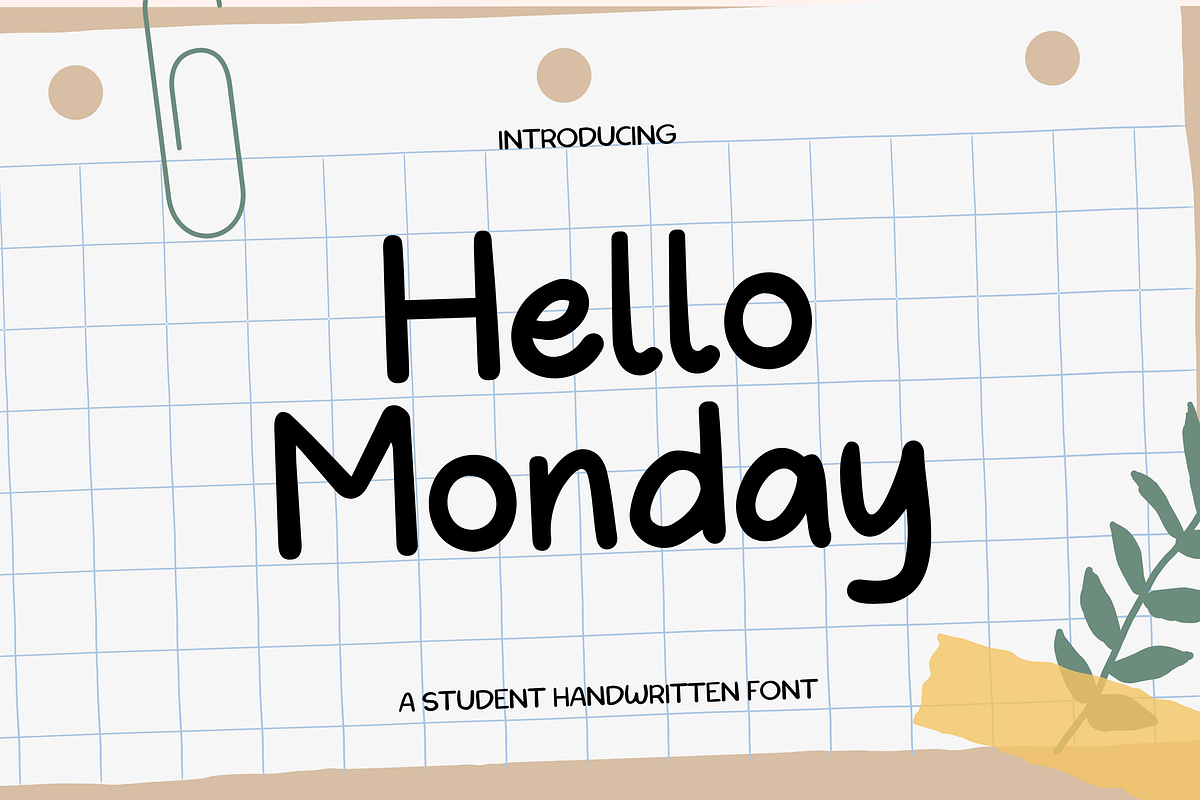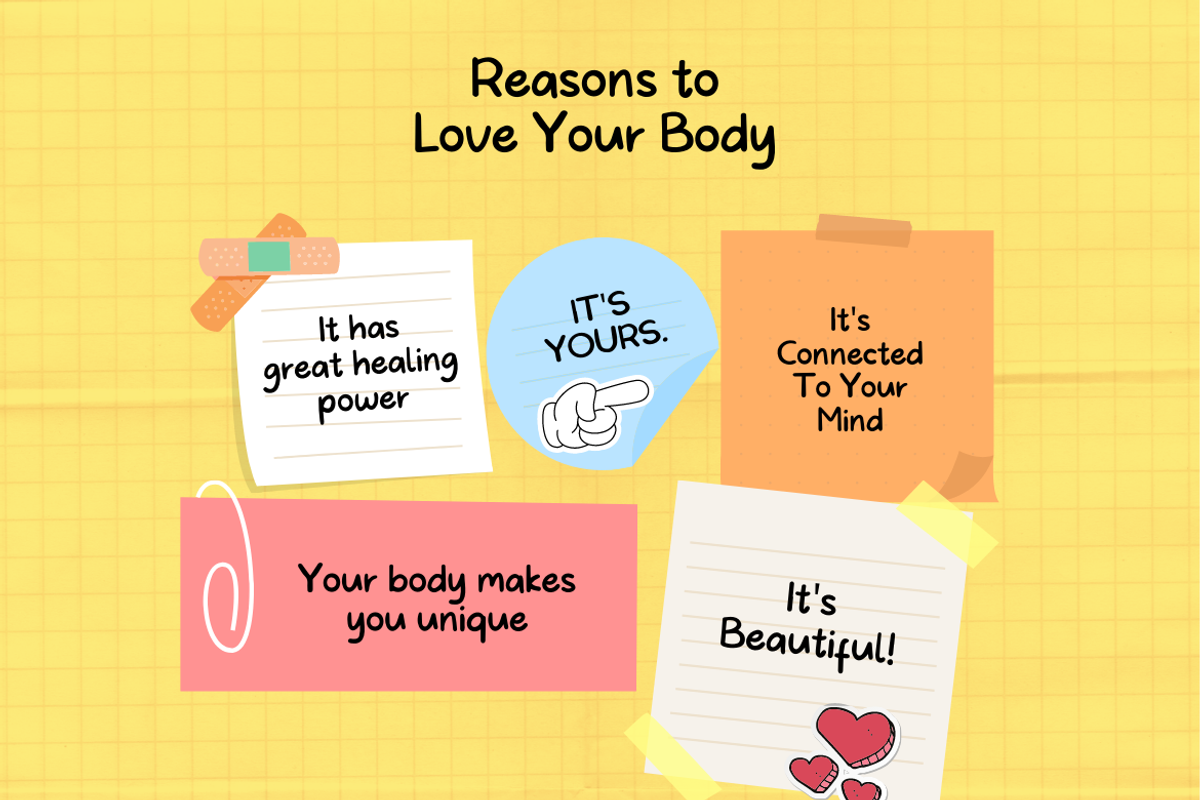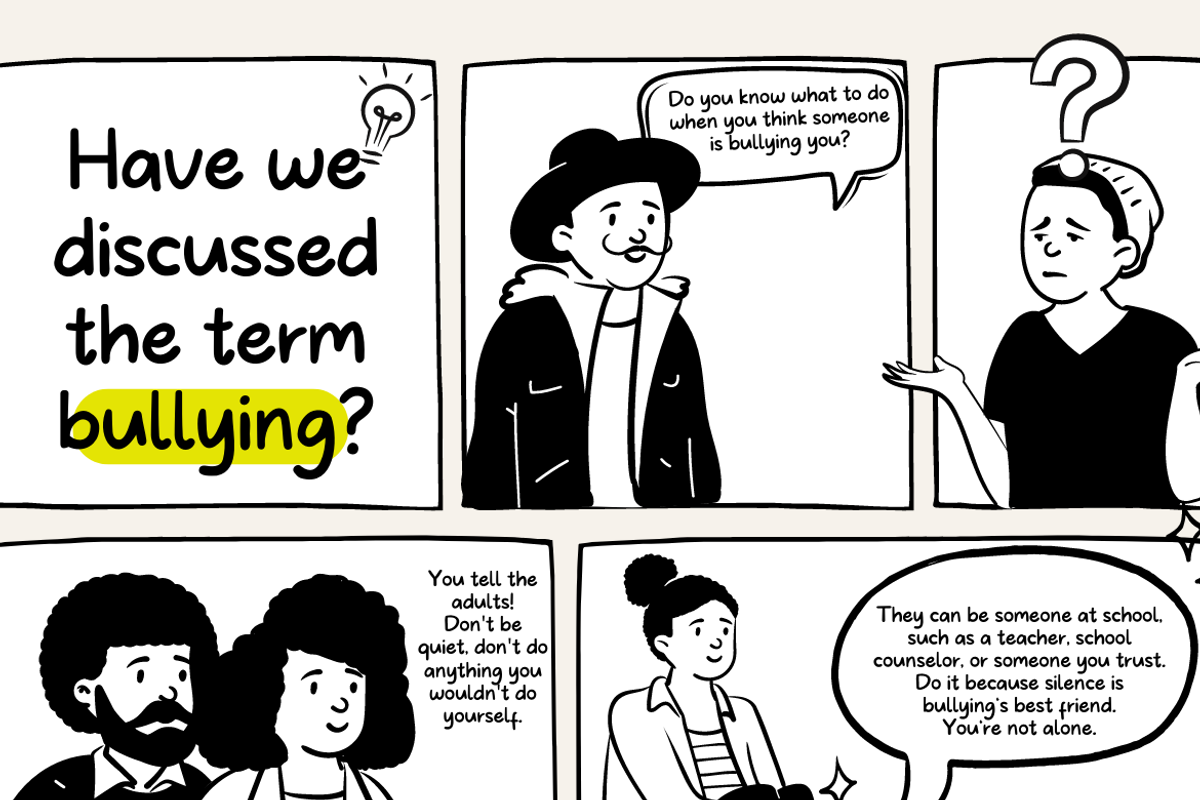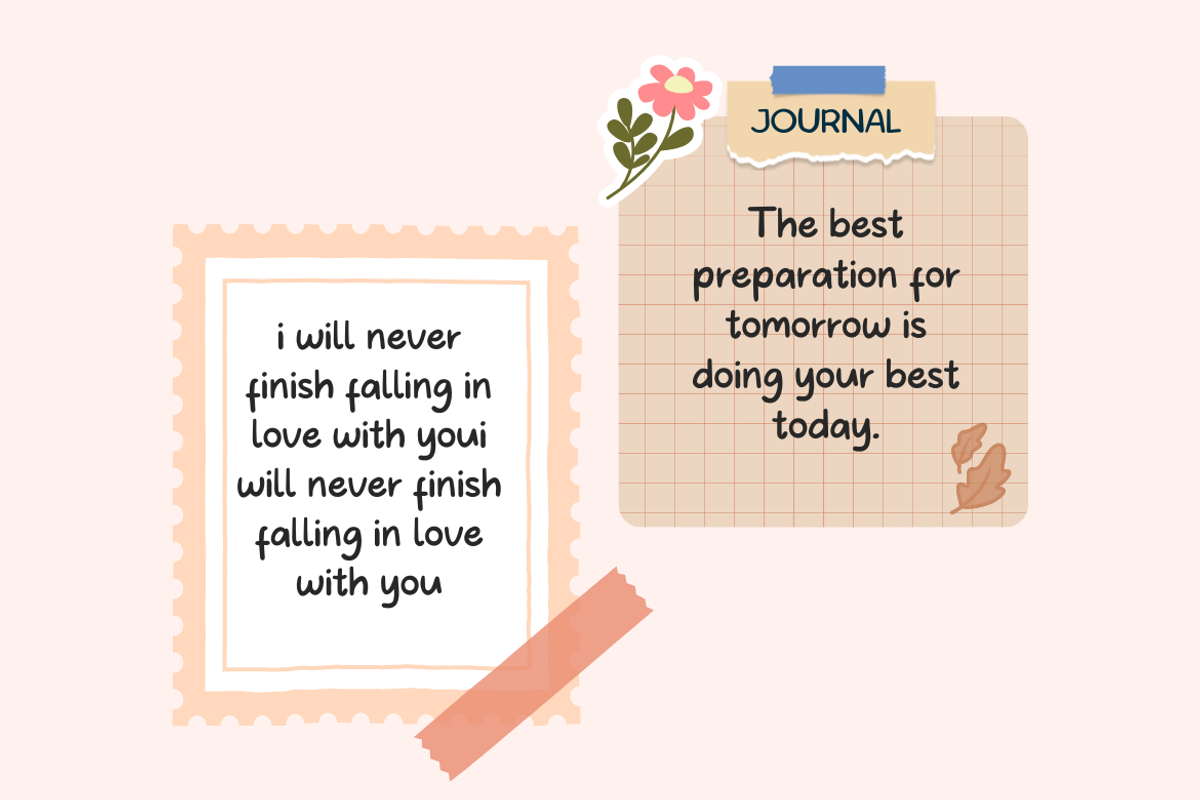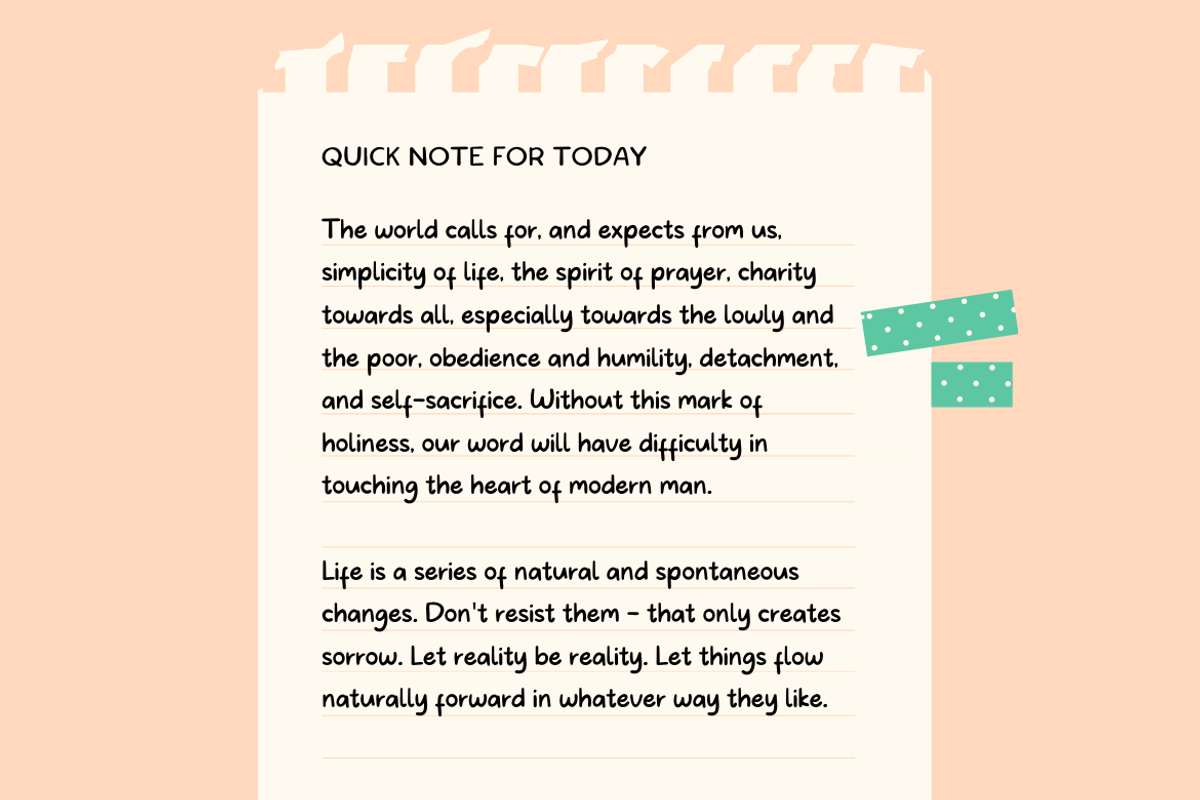
Hello Monday - Notebook Handwritten
Hello Monday is a casual handwriten font with natural stroke. This font will be perfect for notes, product description, headline, product paragraph, logos, branding and many more.